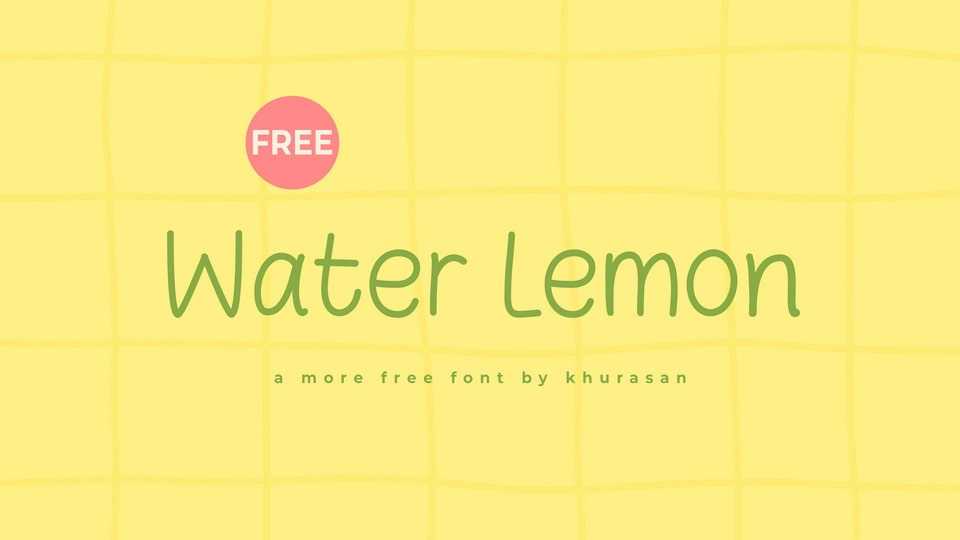
Download Water Lemon font, a soft, playful handwritten typeface with a fresh, breezy personality. Its relaxed letterforms and rounded curves create a friendly, casual vibe.